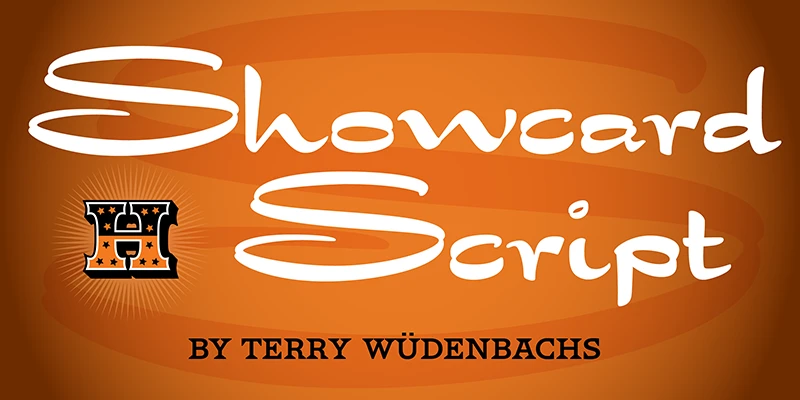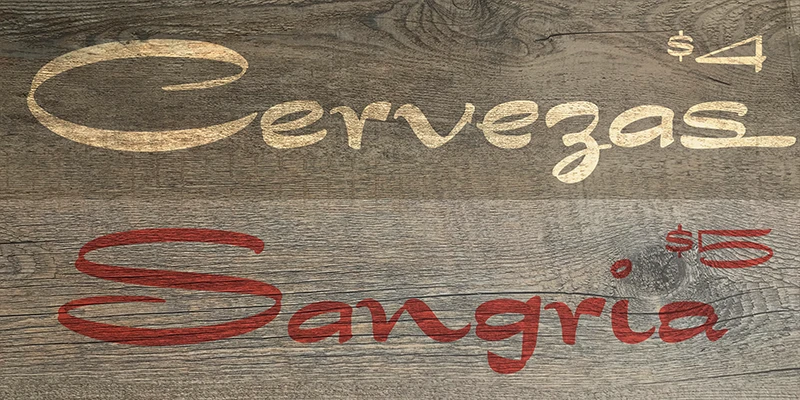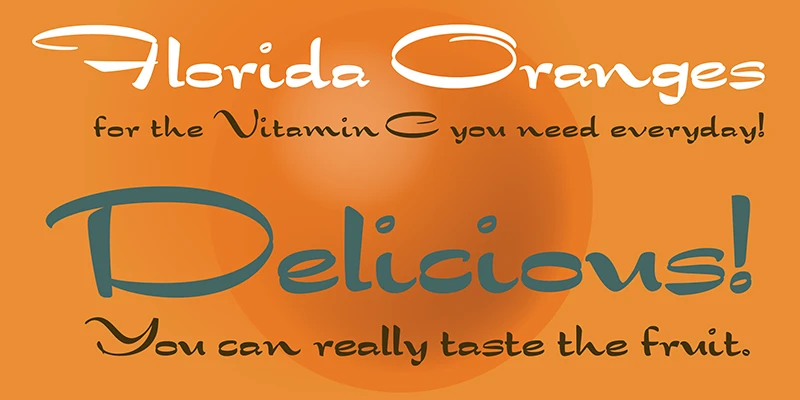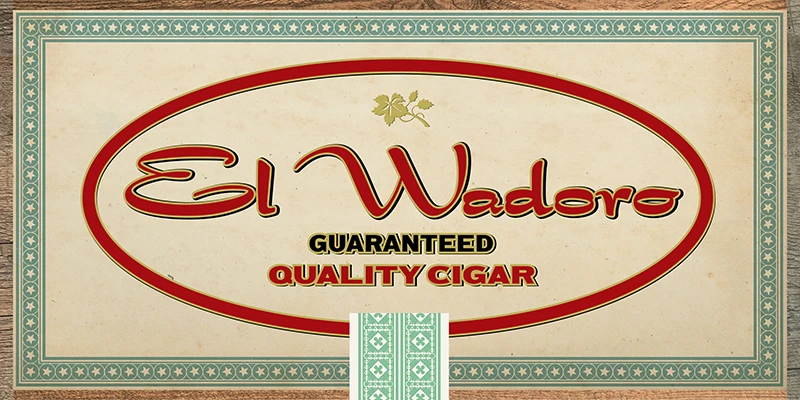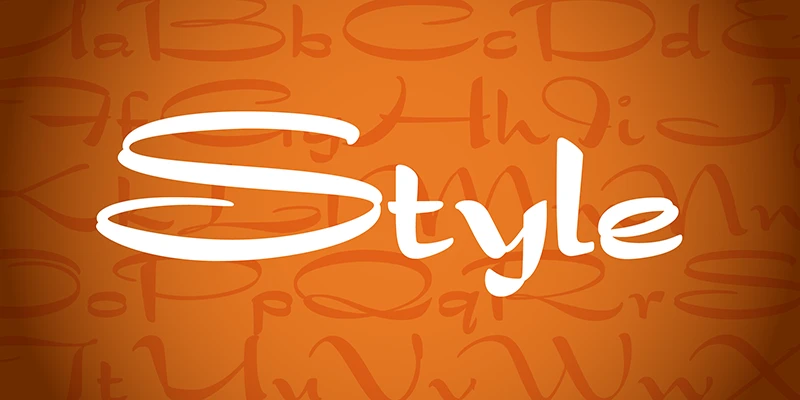
Showcard Script
From Hamilton Wood Type Collection
HWT Showcard Script is a dynamic vintage typeface that hints at its origins from the mid-1900s, designed for shop owners to create in-house promotional material. Its brushstroke-based glyphs emulate skilled sign painting, with bold uppercase letters and unique details like the looping in B, E, and R, and open-dot i and j. Designer Terry Wüdenbachs digitized it from the Hamilton Wood Type & Printing Museum, extending the character set so you can create an authentic shop card aesthetic, too!
Designed by Terry Wüdenbachs